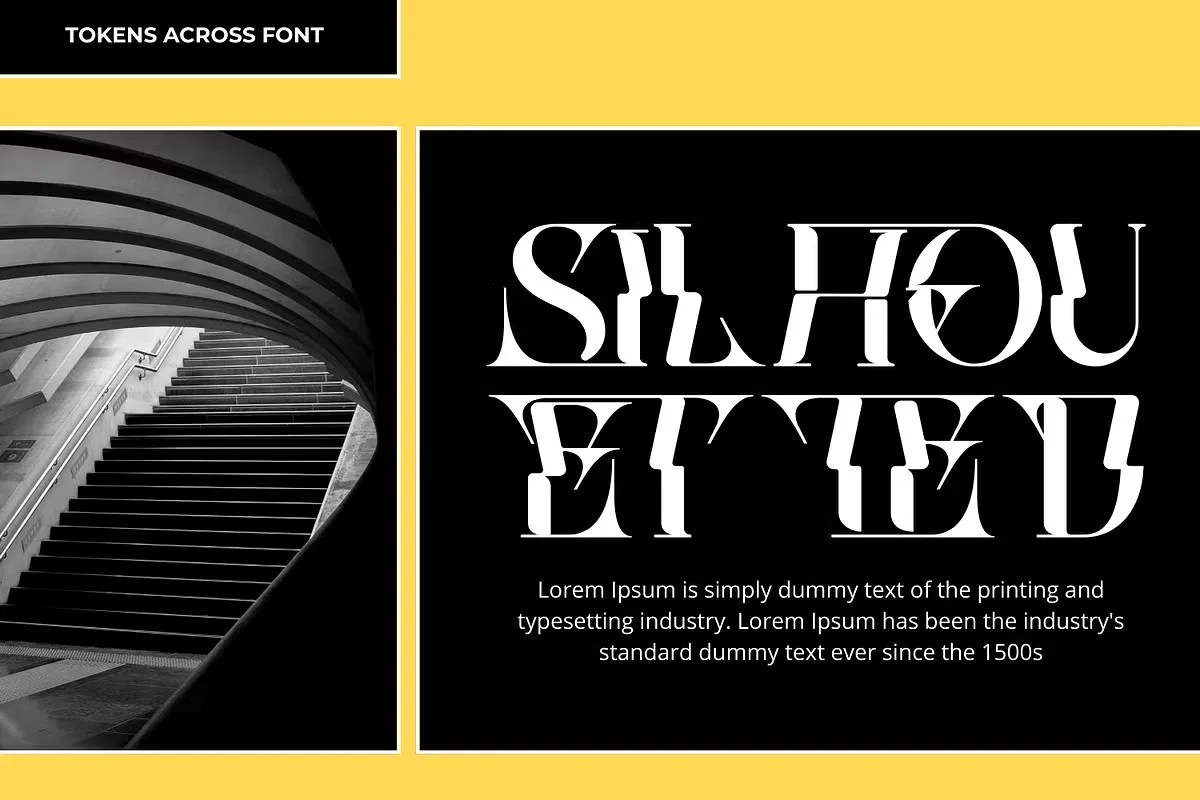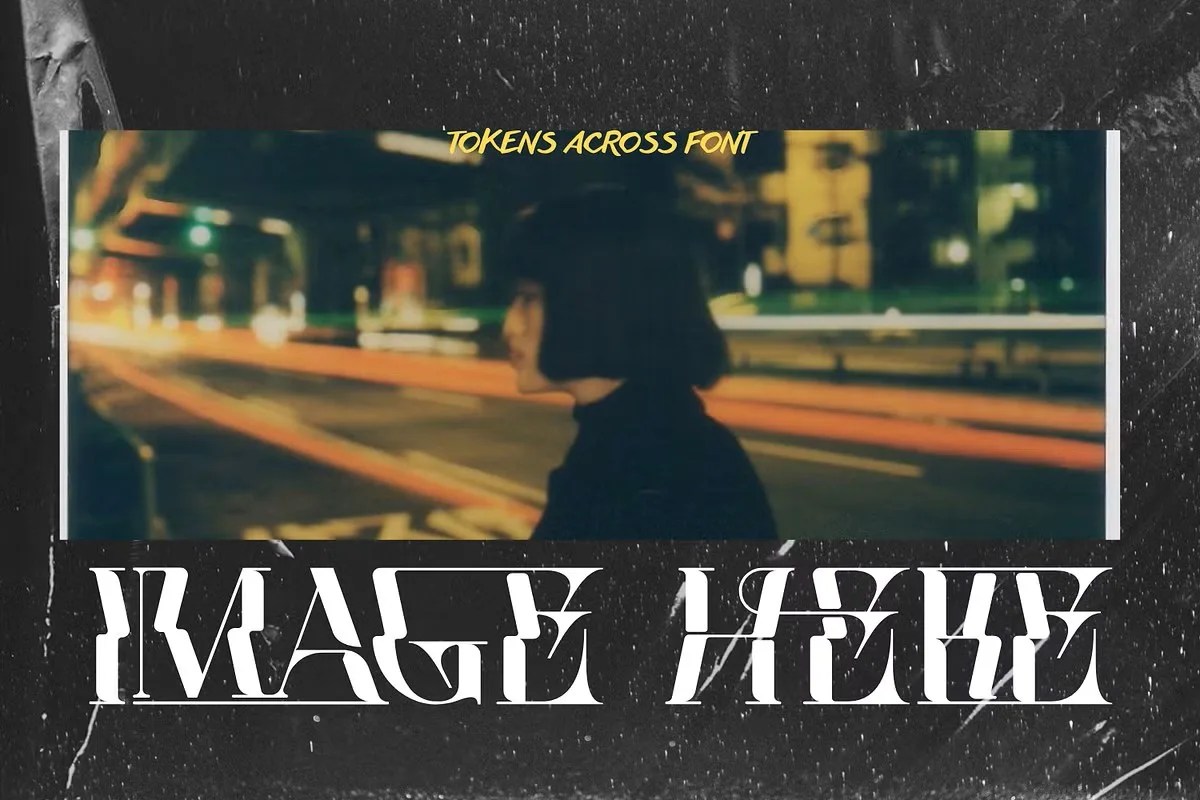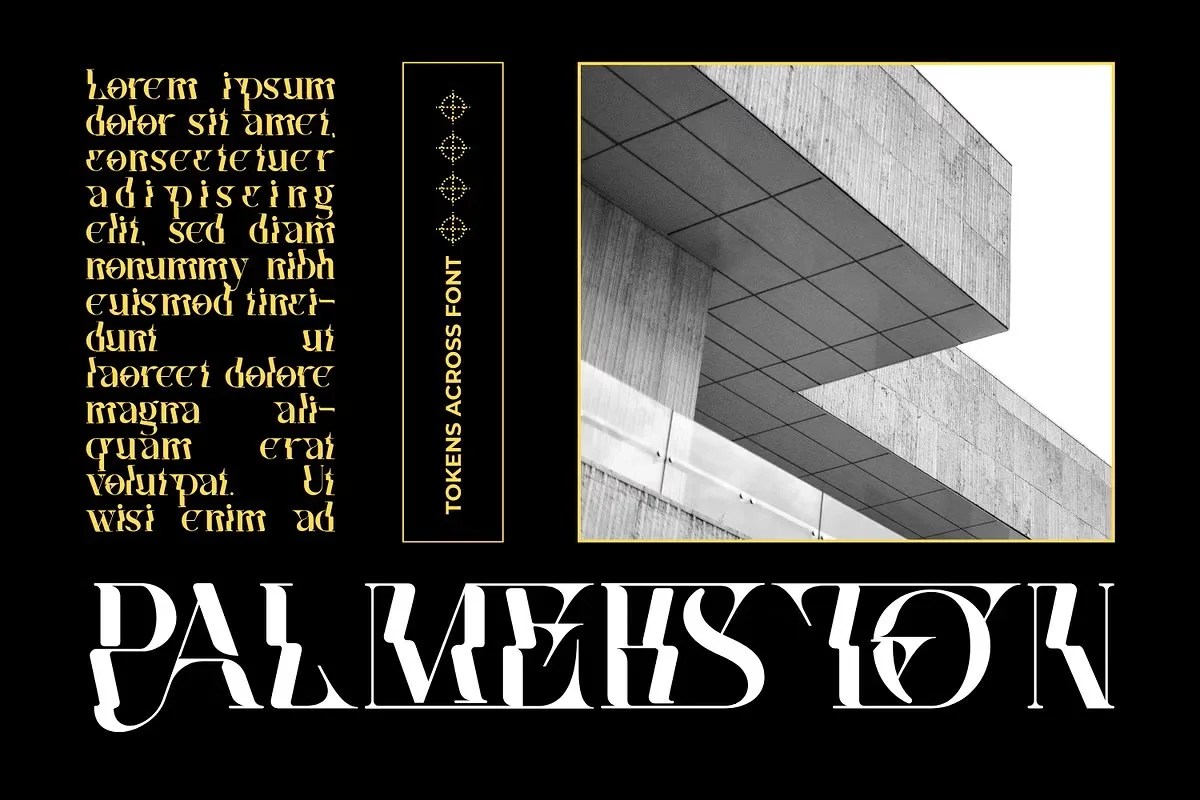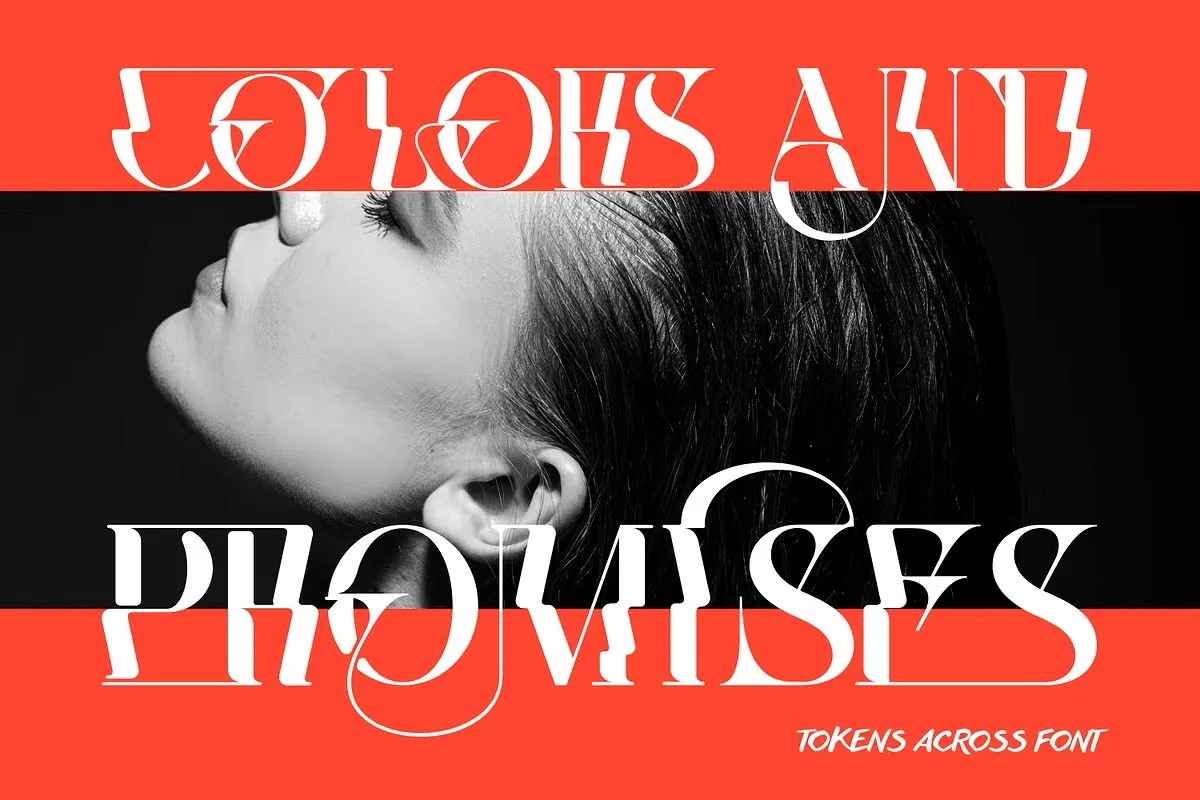
Tokens Across by 177Studio is a classic display font with a refined balance of elegance and timeless style. Featuring sharp serifs, smooth curves, and clean proportions, this typeface brings a sense of sophistication and professionalism to any project.
Perfect for editorials, branding, invitations, packaging, certificates, and logo design, Tokens Across delivers both readability and artistic charm. Its design makes it equally suitable for formal layouts and creative, high-end branding.
• Elegant display typeface
• Timeless and professional design
• Great for logos & branding
• Ideal for invitations & certificates
• Perfect for editorials & magazines
• Excellent for packaging & product labels
• Strong readability across sizes
Tokens Across